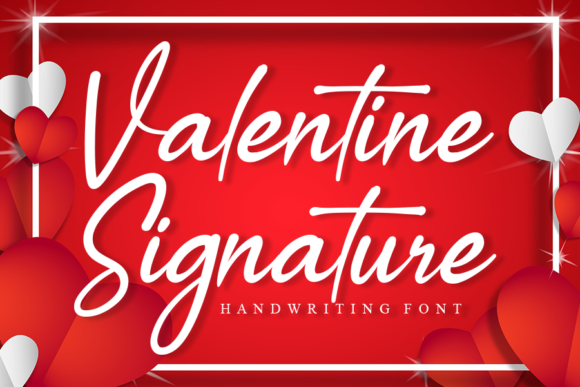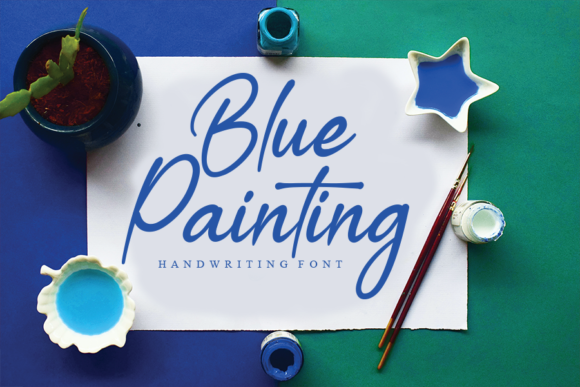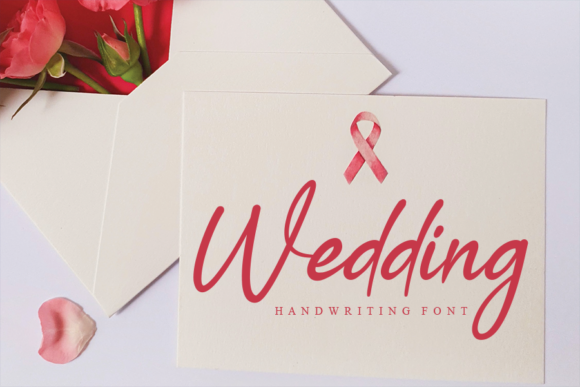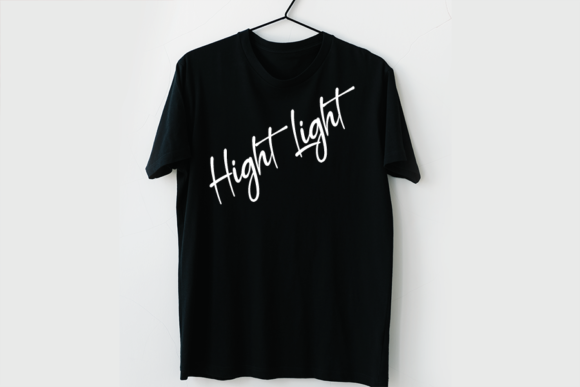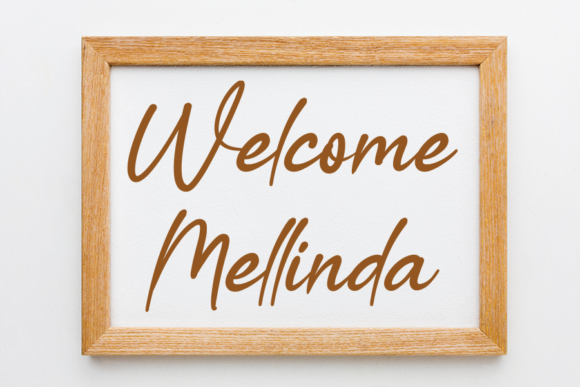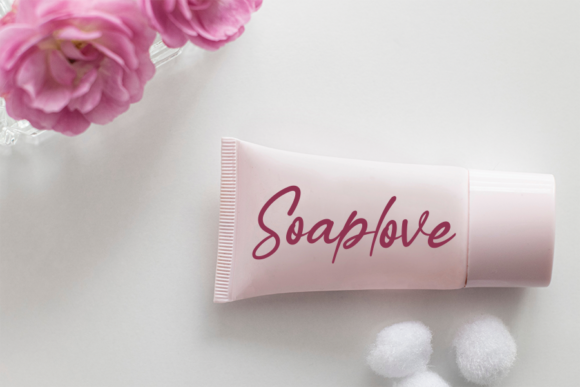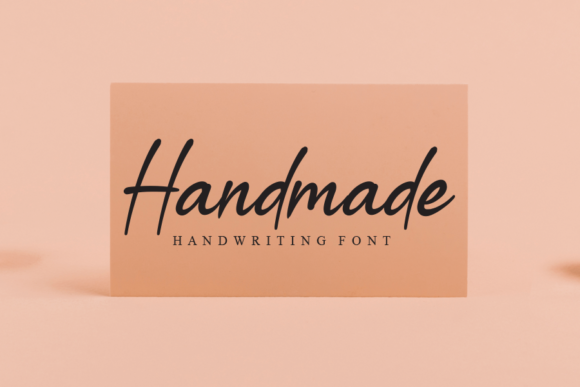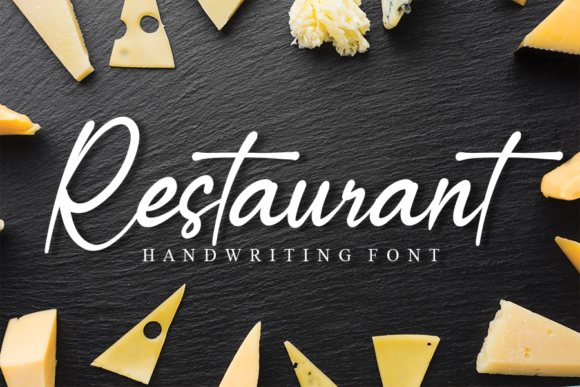
Valentine Signature Font
About Valentine Signature Font
Introducing “Valentine Signature,” an elegant and sweet script font that adds a romantic spark to your designs. With its graceful and charming style, this font is perfect for adding a touch of enchantment to any design idea you can think of.
The elegant nature of “Valentine Signature” makes it a great choice for a variety of projects. Its flowing and delicate strokes bring a sense of sophistication and grace to your designs. Whether you’re creating a wedding invitation, a love letter, a logo for a romantic brand, or any other design that requires a romantic touch, “Valentine Signature” will help you capture the essence of love and romance.
Wedding invitations become even more enchanting with the use of “Valentine Signature.” Its elegant and sweet script adds a touch of romance and elegance to your wedding stationery. The graceful curves and delicate details of the font create a sense of beauty and refinement, setting the tone for a memorable and romantic celebration.
Love letters and heartfelt messages gain an extra dose of charm with the inclusion of “Valentine Signature.” Its romantic spark and flowing script bring a sense of warmth and affection to your words. Whether you’re writing a love note, creating a personalized gift, or designing a special card for your loved one, “Valentine Signature” will help you express your emotions with style and grace.
Logos for romantic brands or businesses can benefit from the elegance of “Valentine Signature.” Its graceful and charming style adds a touch of sophistication to your brand identity. Whether you’re running a boutique, a wedding planning service, or a luxury gift shop, “Valentine Signature” will help convey the romantic and enchanting nature of your business.
In summary, “Valentine Signature” is an elegant and sweet script font that adds a romantic spark to your designs. Its graceful and charming style makes it perfect for wedding invitations, love letters, romantic logos, and any design that requires a touch of enchantment. Incorporate “Valentine Signature” into your projects to add a sense of romance, elegance, and warmth, making them truly captivating and memorable.